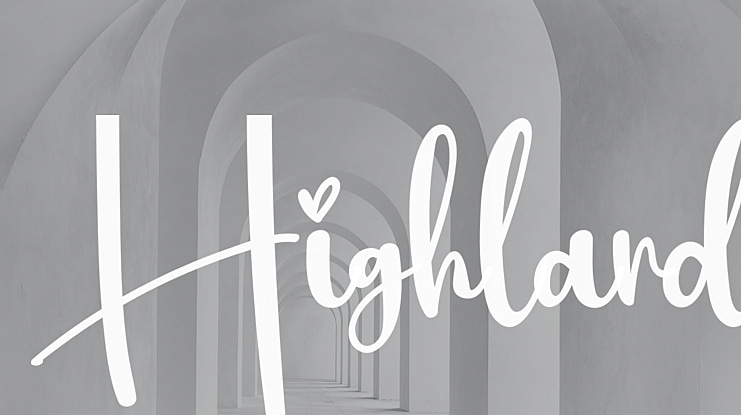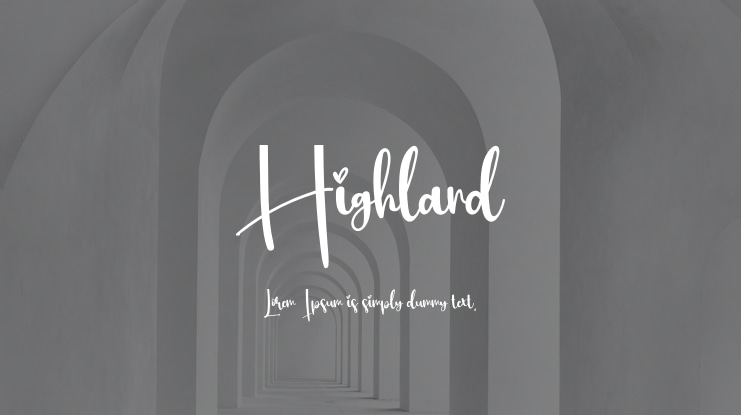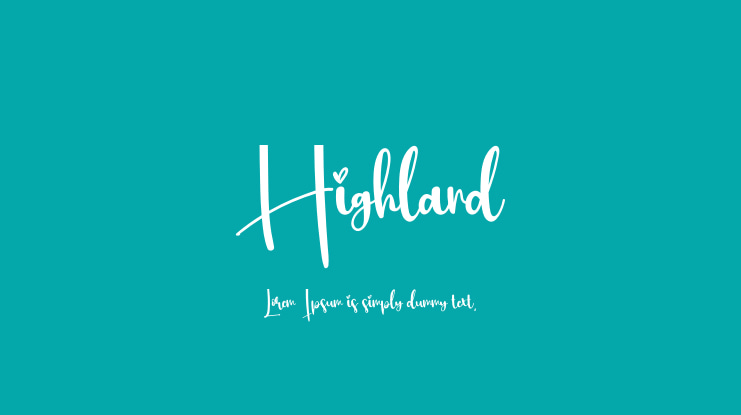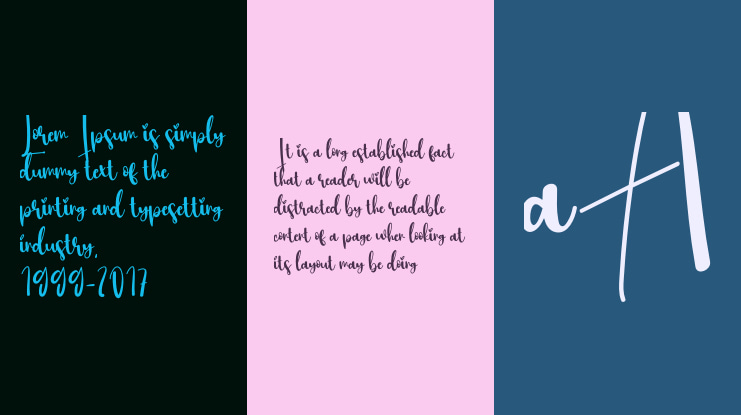
Highland Font
Our latest collection of stylish fonts is perfect for various applications including wall displays, wedding invitations, social media post logos, advertisements, product packaging, designs, labels, photography, watermarks, invitations, stationery, and any project that requires elegant handwriting.